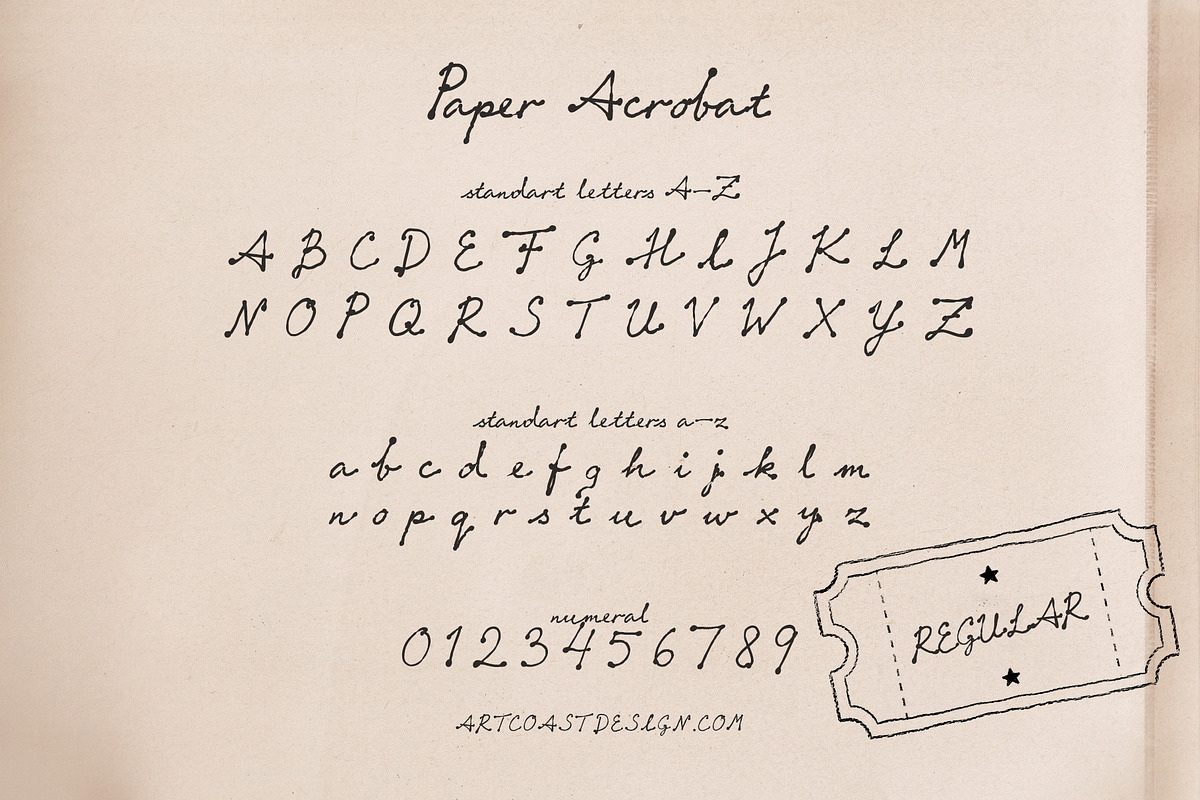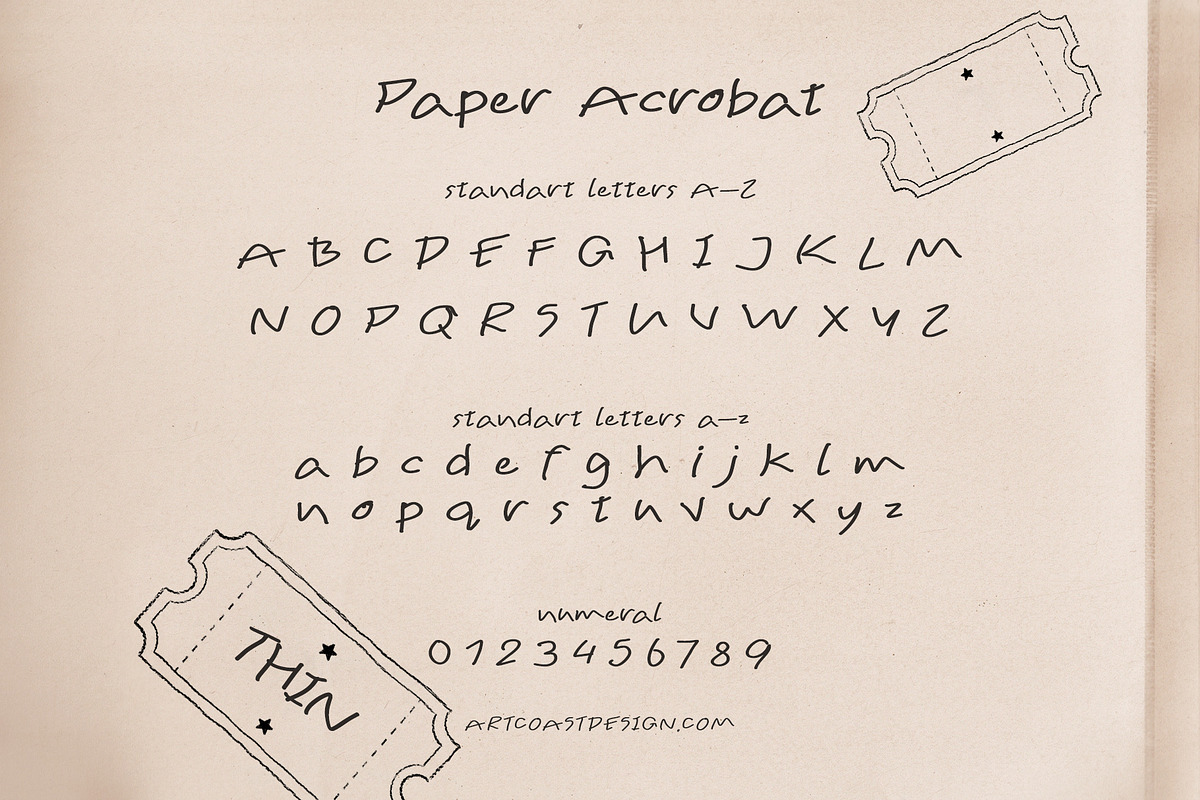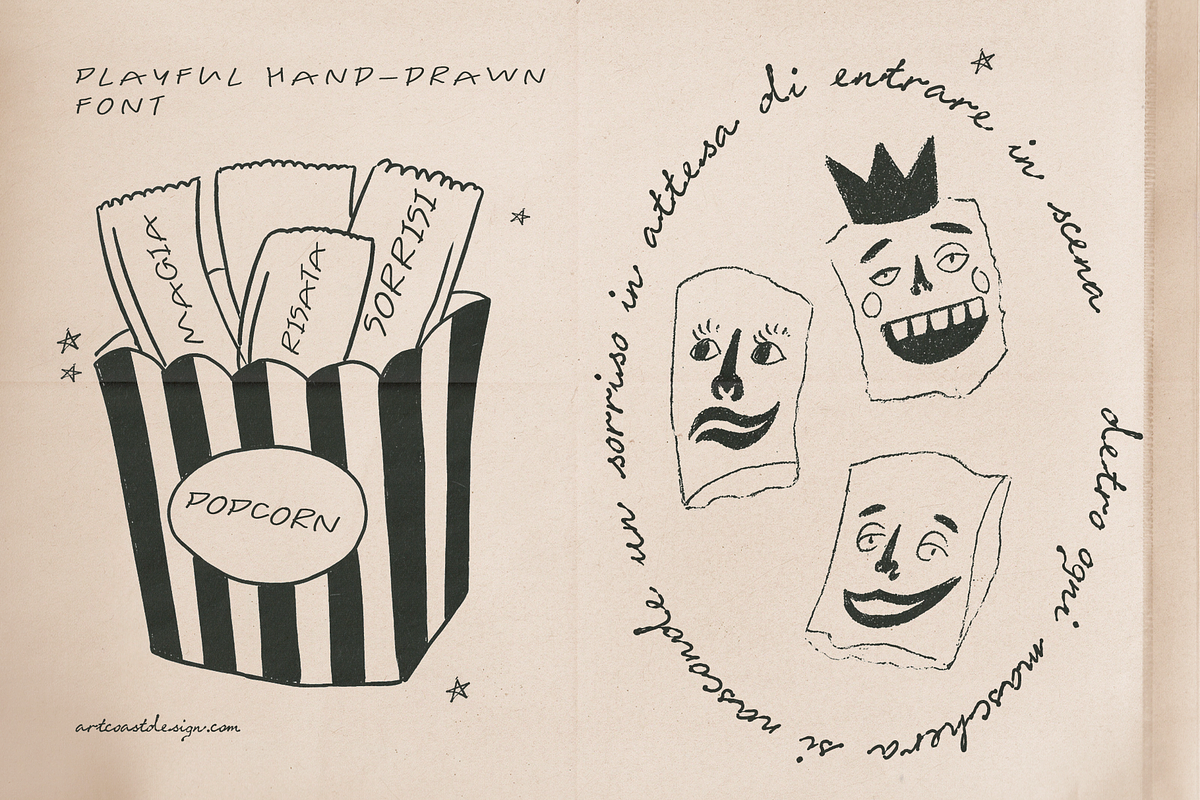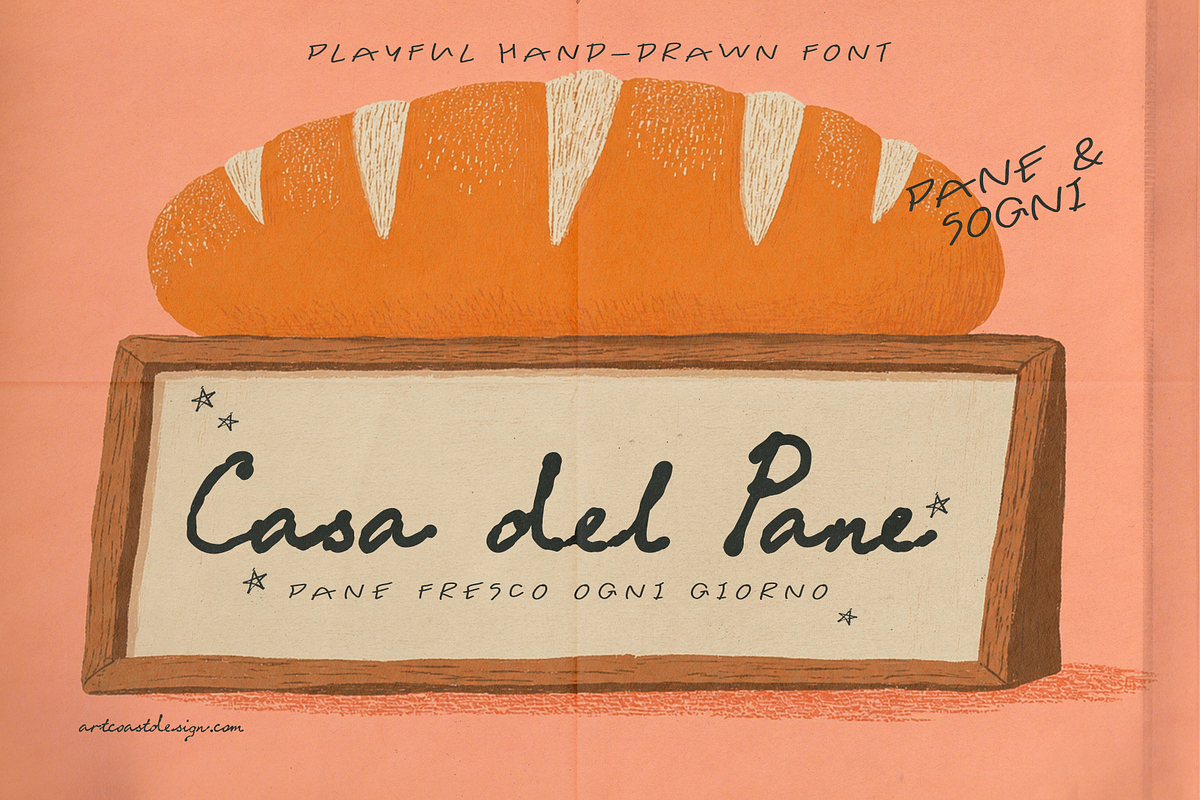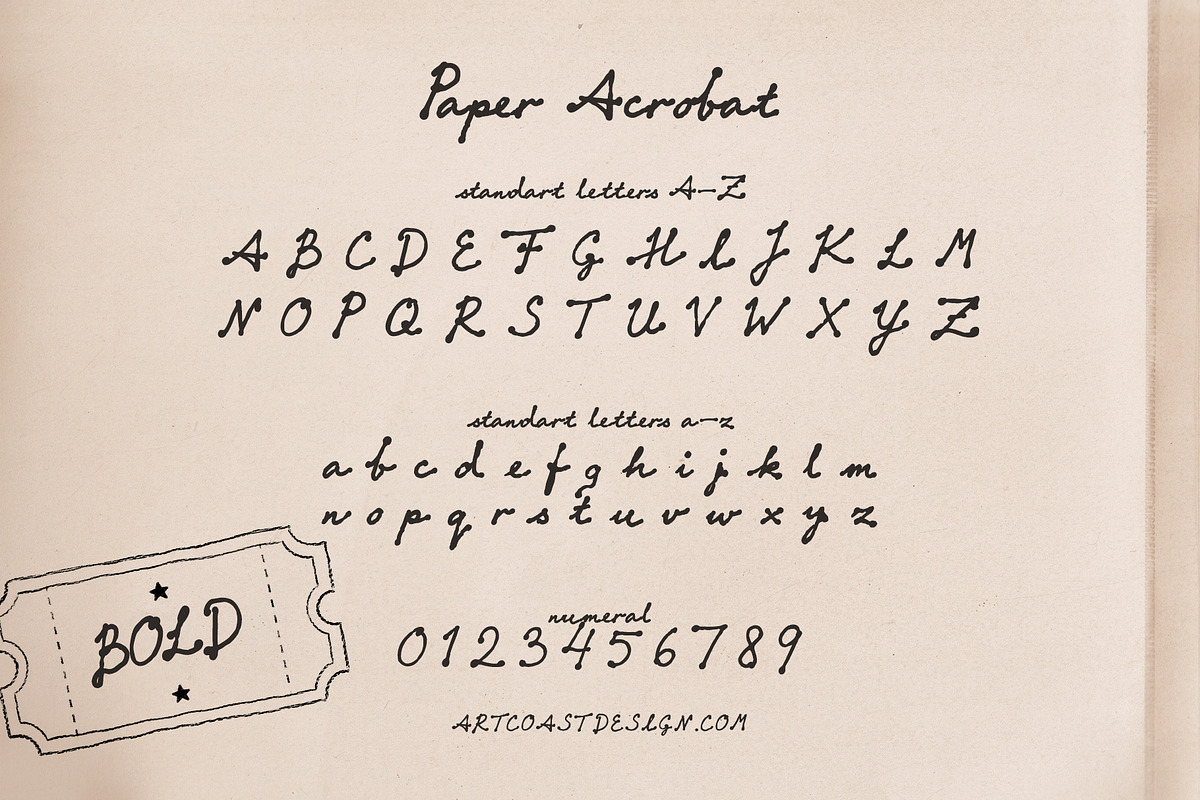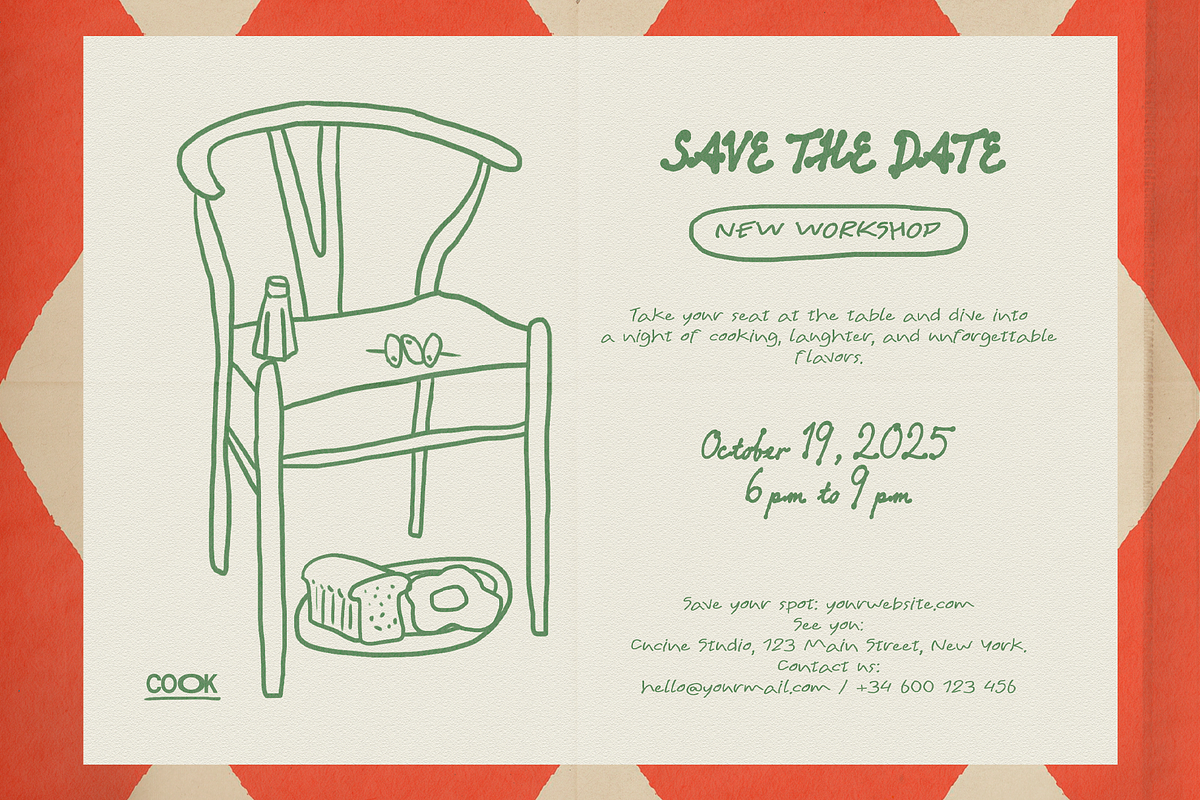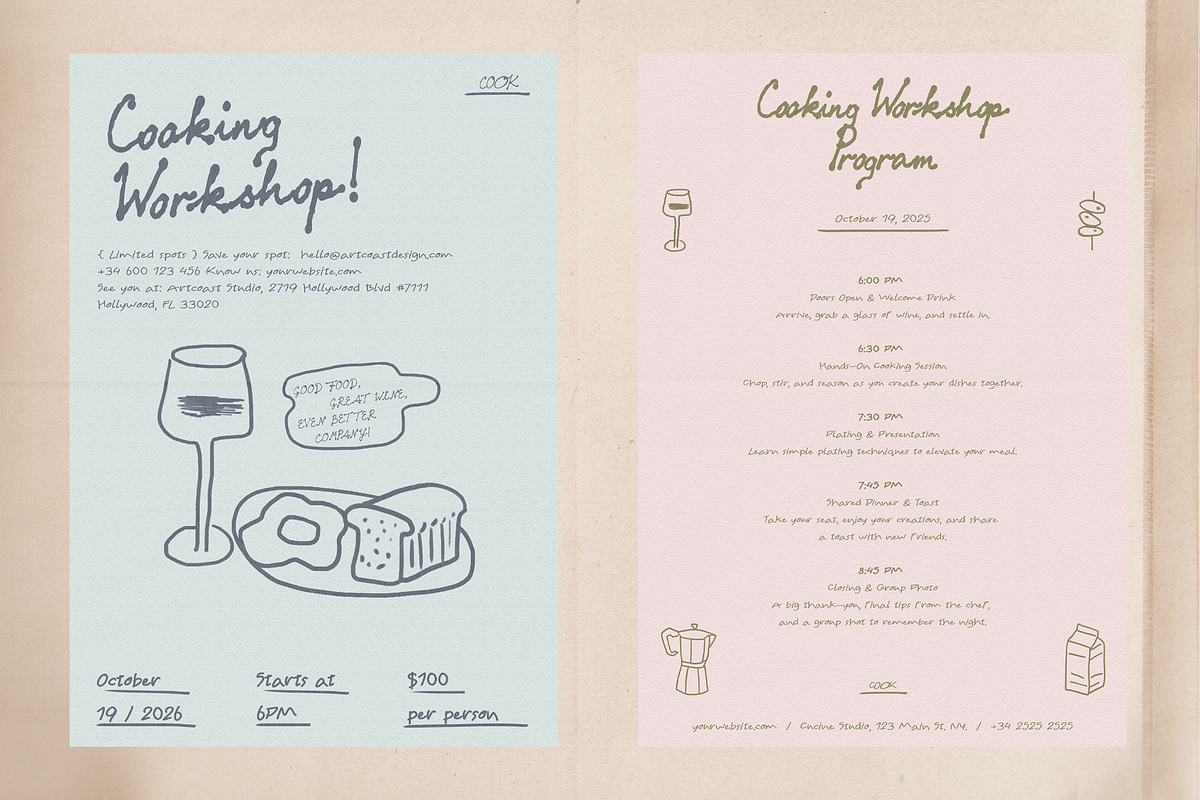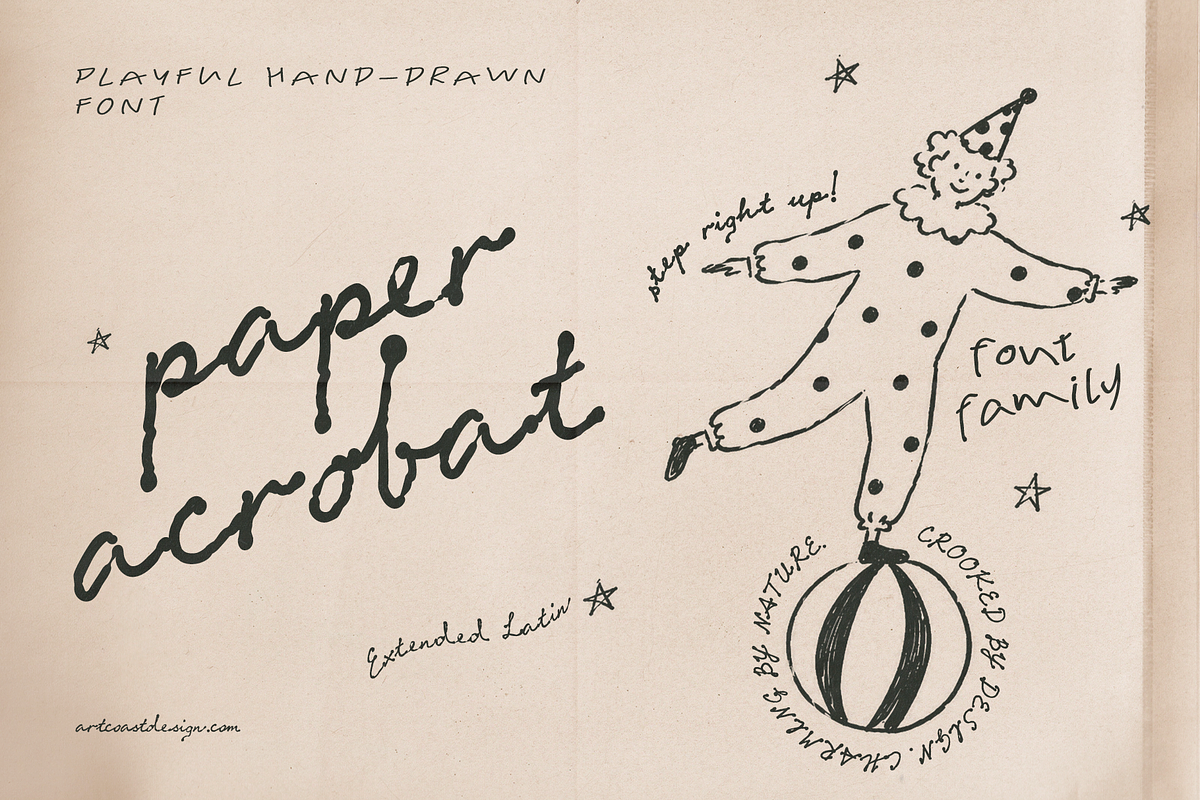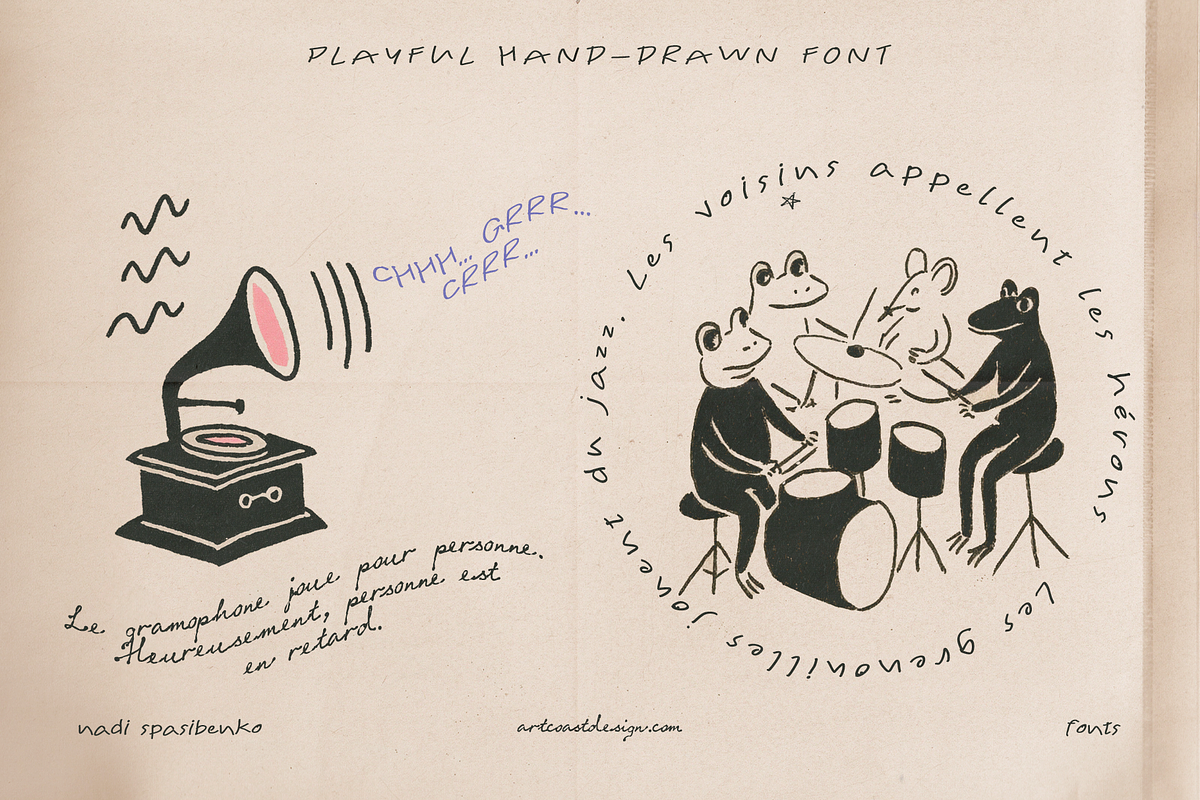
Paper Acrobat – Handwritten Font
Paper Acrobat Font Family
Step right up and meet Paper Acrobat, a playful handwritten font family inspired by vintage circus posters, traveling carnivals, whimsical storybooks, and charming hand-drawn signage.
Featuring three carefully crafted styles — Light, Regular, and Bold, this typeface brings an authentic handmade personality to your creative projects. Each letter is drawn with natural imperfections and expressive strokes, creating a warm and nostalgic feel that works beautifully for branding, packaging, invitations, children's products, posters, social media graphics, and editorial design.
Paper Acrobat captures the magic of old-fashioned circus tickets, quirky illustrations, folk art, and playful typography while remaining highly readable and versatile.
• Vintage circus branding
• Children's books
• Toy packaging
• Greeting cards
• Posters & flyers
• Artisan product labels
• Social media graphics
• Scrapbooking
• Logo design
• Café and boutique branding
• Editorial layouts
• Handmade products
• Handcrafted character design
Bring a touch of playful nostalgia and hand-drawn charm to your next creative project with Paper Acrobat.